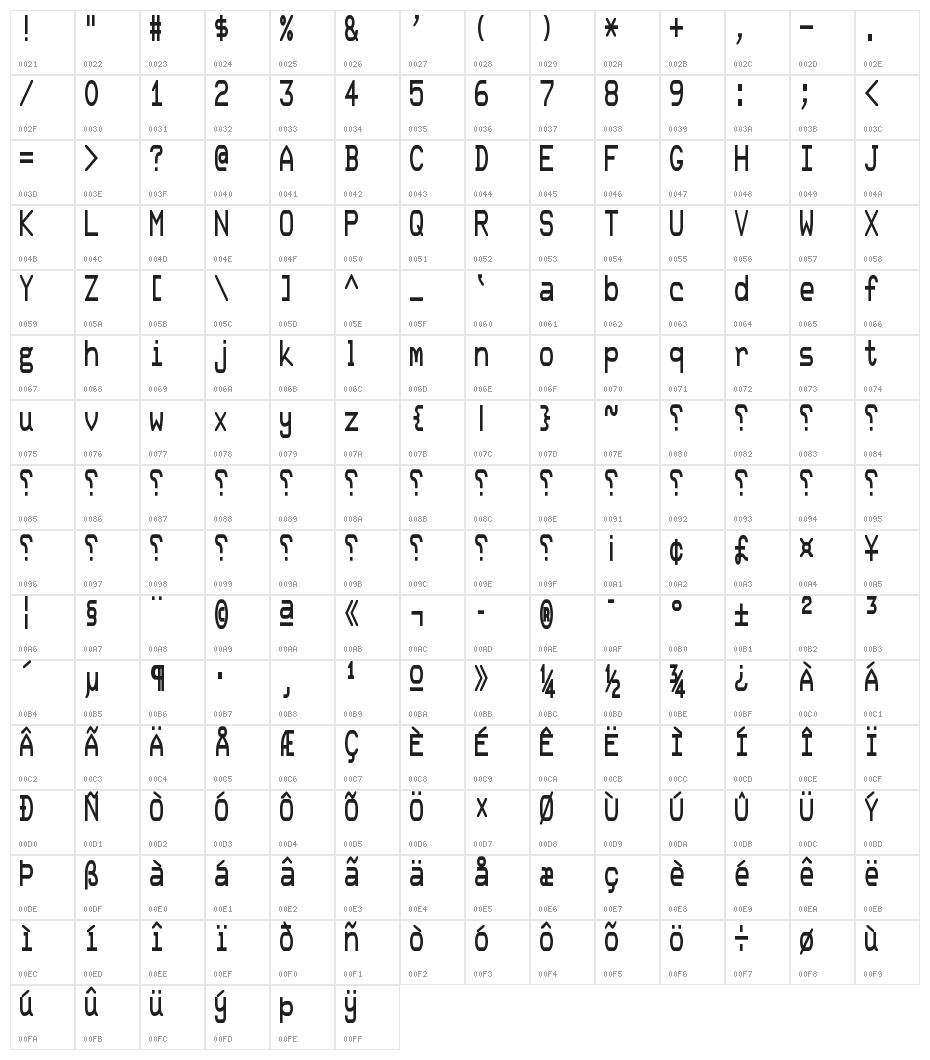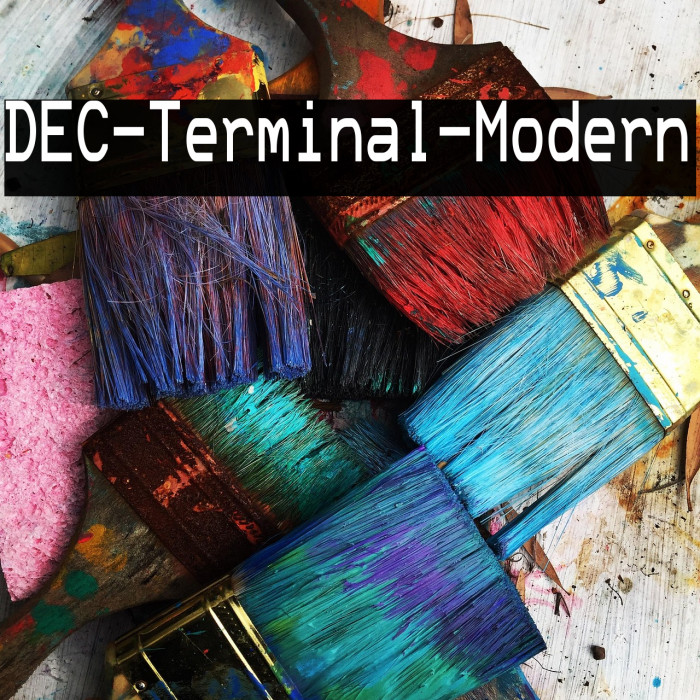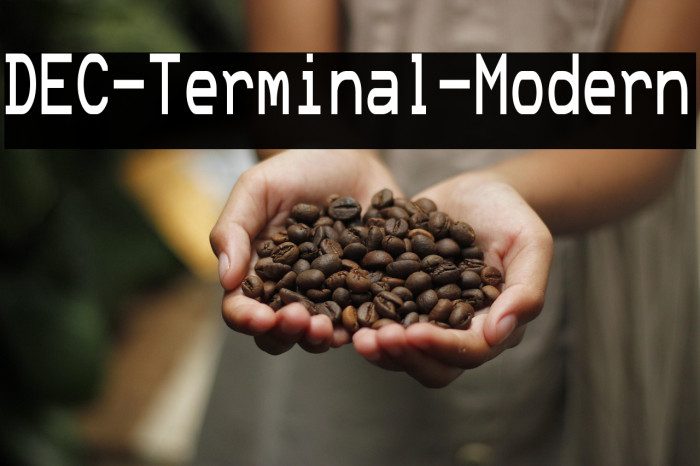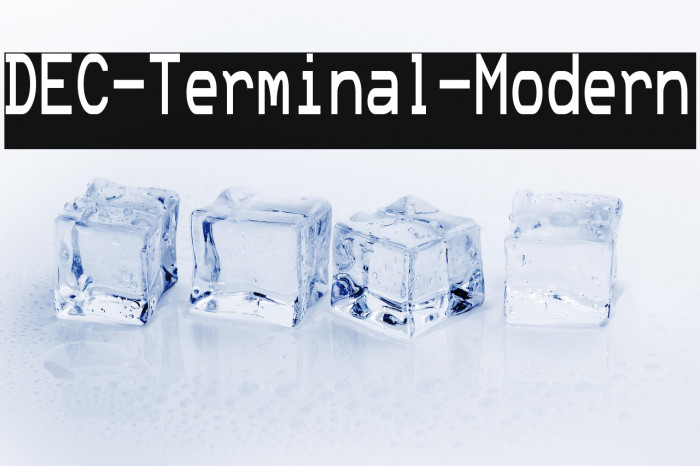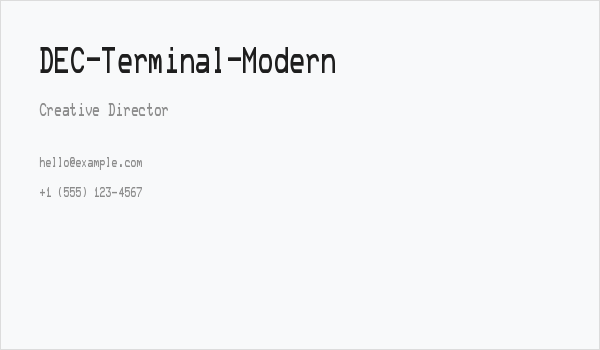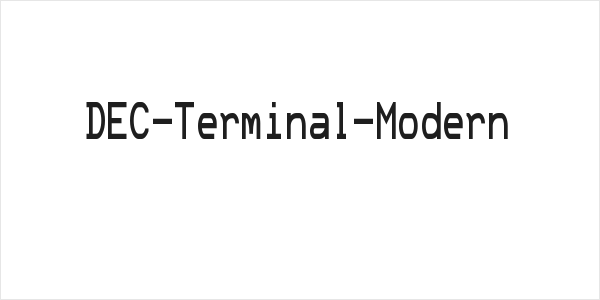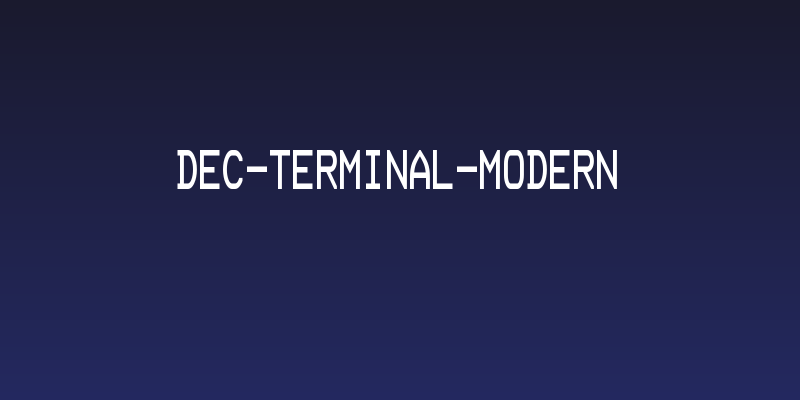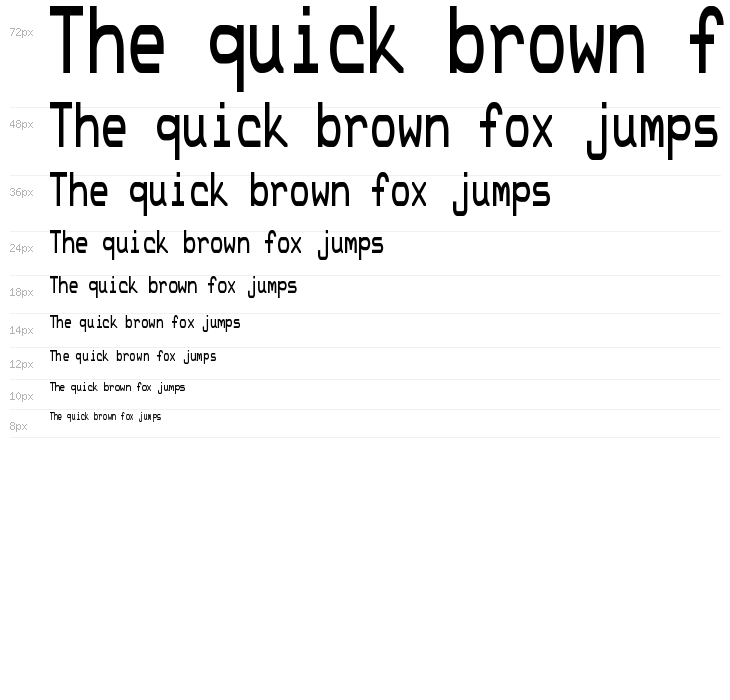
DEC-Terminal-Modern Font
DEC-Terminal-Modern Description
This font features a clean, modern aesthetic with a monospaced design, reminiscent of classic computer terminal fonts. The characters are evenly spaced, providing a uniform appearance that enhances readability. The uppercase and lowercase letters are distinct, with a geometric structure that emphasizes clarity and precision. The numerals are straightforward and align perfectly with the overall style, making them ideal for technical or digital contexts. Special characters are included, maintaining the consistent design ethos. This font is versatile, suitable for both digital and print media, where a modern, technical look is desired.
| Use Case | Headlines, Body text, Digital interfaces |
| Proposed Projects | Ideal for coding environments, technical documentation, digital interfaces, and retro-themed designs. |